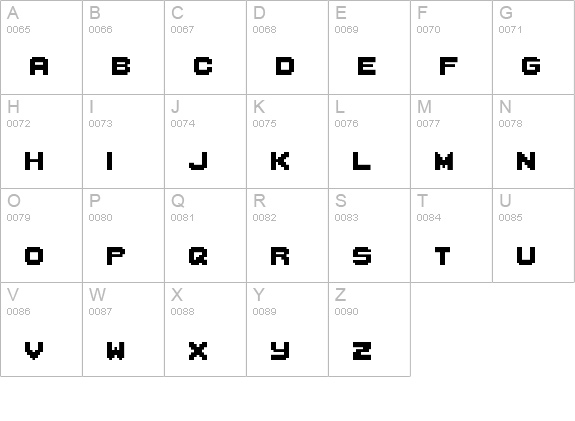
ConsiderMeVexed Regular is the standard, neutral variant in the ConsiderMeVexed typeface family \xE2\x80\x94 well suited to general body text, paragraphs, and standard typographic work.
ConsiderMeVexed Regular is a stylish and modern font that combines elegance with a touch of edginess. Its sleek lines and unique character shapes make it perfect for a variety of design projects, from branding to advertising to social media graphics. This font exudes confidence and creativity, making it a versatile choice for both personal and professional use. The best part? ConsiderMeVexed Regular is completely free to download at FontsMarket.com. This means you can add this eye-catching font to your collection without any cost, making it a valuable addition to your design toolkit. Don't miss out on the opportunity to enhance your projects with this striking and contemporary font – download ConsiderMeVexed Regular today!